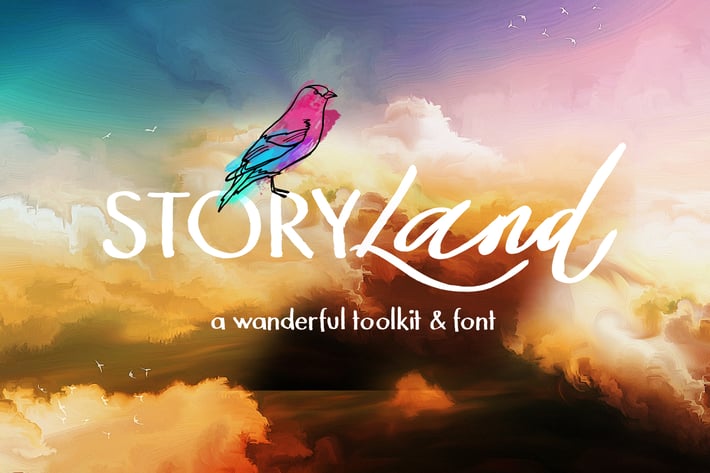
Storyland Font Toolkit
This is Storyland, our wolderful toolkit that consists of 2 fonts and more than 150 vector elements, all hand drawn! And to top it all of we included 50 premade logos that you can use as they are for your website, prints or business or you can mix and create even more logos!
Storyland features:
2 fonts - script & sans serif (.ttf) - includes numerals and punctuation